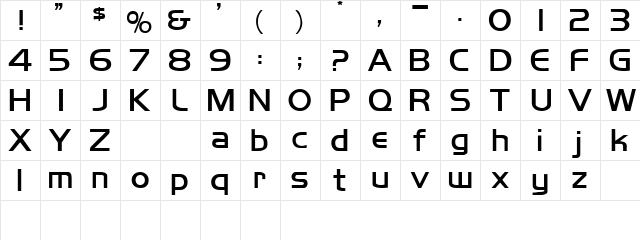
Mikity Bold
Design Context for Mikity Typeface
Mikity takes a measured approach to typography — its balanced proportions and neutral character make it a reliable workhorse for both digital and print work. Its bold stroke weight gives it real presence on the page.